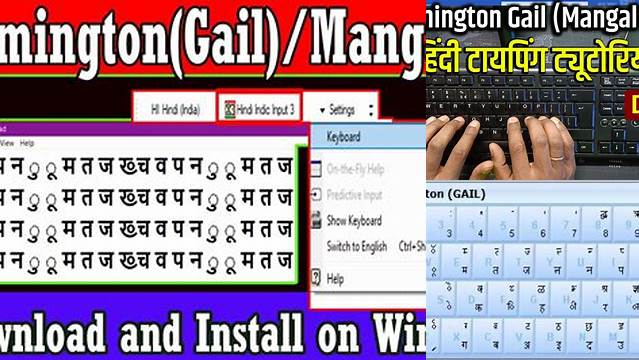
Mangal Font Remington Gail Keyboard: Free Download Guide
Understanding Mangal Font and Remington Gail Keyboard Layout
Let's start with the basics, shall we? The Mangal font is a popular Unicode font used for typing in Hindi and other Indian languages. It's widely used in government offices, publications, and various other sectors in India. Now, the Remington Gail keyboard layout is a specific layout designed for typing in Mangal font. It's known for its efficiency and is often preferred by professional typists. Think of it as the go-to tool for anyone serious about Hindi typing. This layout is inspired by the traditional typewriter keyboards, making it a familiar choice for many experienced typists. The keys are arranged in a way that optimizes speed and accuracy, allowing for a smooth transition from manual typewriters to digital typing. The Remington Gail keyboard layout is not just about typing; it's about preserving a legacy of typing excellence. It embodies the principles of ergonomic design and intuitive key placement, ensuring that typists can produce high-quality work with minimal effort. The adoption of this layout signifies a commitment to both efficiency and the rich heritage of Hindi typography. Whether you're drafting official documents, composing literary masterpieces, or simply communicating with friends and family, the Remington Gail layout paired with the Mangal font offers a powerful combination for effective and elegant Hindi typing. The elegance of the Mangal font combined with the efficiency of the Remington Gail layout makes it a favorite among professionals and enthusiasts alike. So, if you're aiming for accuracy and speed in Hindi typing, understanding and mastering this setup is key.
Why Use Mangal Font and Remington Gail Layout?
Why should you bother with Mangal font and the Remington Gail layout, you ask? Well, there are several compelling reasons! First off, Mangal font is the standard font for many official documents in India, especially those related to the government. So, if you're dealing with any official work, knowing how to type in Mangal font is a huge advantage. Secondly, the Remington Gail keyboard layout is designed for speed and accuracy. Its layout is optimized for Hindi typing, allowing you to type faster and with fewer errors compared to other layouts. Imagine being able to breeze through your typing tasks with ease – that's the power of Remington Gail! Think about it: time is precious, and efficiency is key, especially in today's fast-paced world. By adopting this layout, you're not just learning to type; you're investing in your productivity. The Remington Gail layout is not just a tool; it's a gateway to mastering Hindi typing. The ergonomic design minimizes strain and maximizes comfort, making long typing sessions less tiring. This is crucial for professionals who spend hours at the keyboard every day. Furthermore, the layout’s widespread use in government and professional sectors means that proficiency in it can open up a plethora of opportunities. From administrative roles to content creation, the ability to type fluently in Mangal font using the Remington Gail layout is a valuable skill. So, whether you're aiming to enhance your career prospects or simply improve your typing speed and accuracy, this combination is a smart choice. The Remington Gail keyboard layout’s logical arrangement of keys reduces cognitive load, allowing you to focus on the content rather than the mechanics of typing. This results in a more seamless and enjoyable typing experience. The benefits extend beyond professional realms as well. For those who enjoy writing in Hindi for personal expression, the ease and fluidity offered by this setup can significantly enhance the creative process.
Step 4: Download and Install Remington Gail Keyboard Layout
Now for the Remington Gail keyboard layout. You'll need to download a keyboard layout installer. Again, a quick Google search for “Remington Gail keyboard layout download” will give you several options. Download the installer from a reliable source. Once downloaded, run the installer and follow the on-screen instructions to install the keyboard layout. The installation process usually involves selecting your operating system and following a few prompts. It's important to choose a reputable source for the keyboard layout installer, as these files can sometimes contain malicious software. Look for websites that are well-known and have positive reviews from other users. Before running the installer, it's a good idea to scan the file with your antivirus software to ensure it's safe. During the installation process, you may be asked to select the language and layout settings. Make sure to choose the correct options for your system. After the installation is complete, you may need to restart your computer for the changes to take effect. This ensures that the new keyboard layout is properly loaded by the operating system. Once your computer restarts, you should be able to switch to the Remington Gail keyboard layout. You can typically do this by clicking on the language icon in the system tray and selecting the Remington Gail layout from the list.
Step 5: Configure Your Keyboard Settings
After installing the Remington Gail layout, you might need to configure your keyboard settings to use it. In Windows, you can go to “Settings” > “Time & Language” > “Add a keyboard” and select the Remington Gail layout. You can also set it as your default keyboard layout if you plan to use it frequently. This step is crucial for ensuring that your system recognizes and uses the new keyboard layout correctly. The keyboard settings menu allows you to customize various aspects of your keyboard, including the input language, layout, and keyboard shortcuts. Take some time to explore these settings and tailor them to your preferences. If you're using multiple keyboard layouts, you can set up a keyboard shortcut to quickly switch between them. This can be a convenient way to toggle between different languages or layouts as needed. Additionally, you can configure the system to display a language bar in the system tray, which shows the currently active keyboard layout. This visual indicator can be helpful in avoiding typing errors. If you encounter any issues with the keyboard layout, such as incorrect characters being displayed, double-check your settings and ensure that the Remington Gail layout is selected. In some cases, you may need to restart your computer for the changes to take full effect.
Step 6: Start Typing in Mangal Font with Remington Gail Layout
And there you have it! You're now ready to start typing in Mangal font using the Remington Gail keyboard layout. Open your favorite word processor, select Mangal font, and start typing. It might take some practice to get used to the layout, but you'll get the hang of it in no time. Remember, practice makes perfect! The transition to a new keyboard layout can be challenging at first, but with consistent effort, you'll become proficient in it. Start by familiarizing yourself with the key positions and practice typing simple words and phrases. There are various online typing tutorials and games that can help you improve your typing speed and accuracy. These resources often provide visual aids and interactive exercises that make learning more engaging. Additionally, you can find cheat sheets and keyboard maps that show the layout of the Remington Gail keyboard. Keep these handy as you practice, and refer to them whenever you're unsure of a key's position. Don't get discouraged if you make mistakes – everyone does when they're learning something new. The key is to keep practicing and gradually build your muscle memory. Over time, you'll find that typing in Mangal font with the Remington Gail layout becomes second nature.
Tips and Tricks for Mastering Mangal Font Remington Gail Typing
Want to become a pro at Mangal font Remington Gail typing? Here are some tips and tricks to help you on your journey:
- Practice regularly: The more you practice, the faster and more accurate you'll become.
- Use a typing tutor: There are many online typing tutors specifically designed for the Remington Gail layout.
- Memorize the key positions: Try to memorize the key positions to type without looking at the keyboard.
- Take breaks: Don't overdo it! Take regular breaks to avoid strain and fatigue.
- Use online resources: There are plenty of websites and forums where you can find tips, tricks, and support for Mangal font Remington Gail typing.
Sometimes, things don't go as planned. Here are some common issues you might encounter and how to troubleshoot them:
- Mangal font not showing up: Make sure you've installed the font correctly and restart your computer.
- Remington Gail layout not working: Check your keyboard settings and ensure the layout is selected.